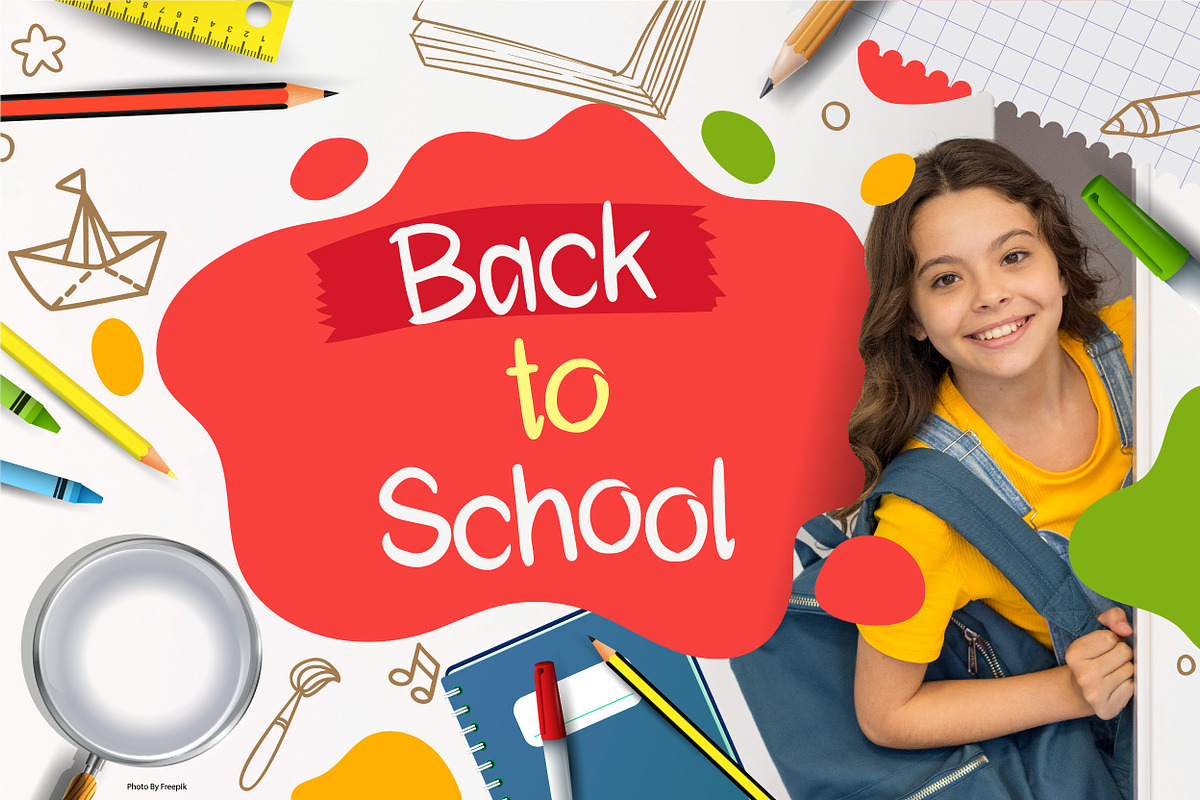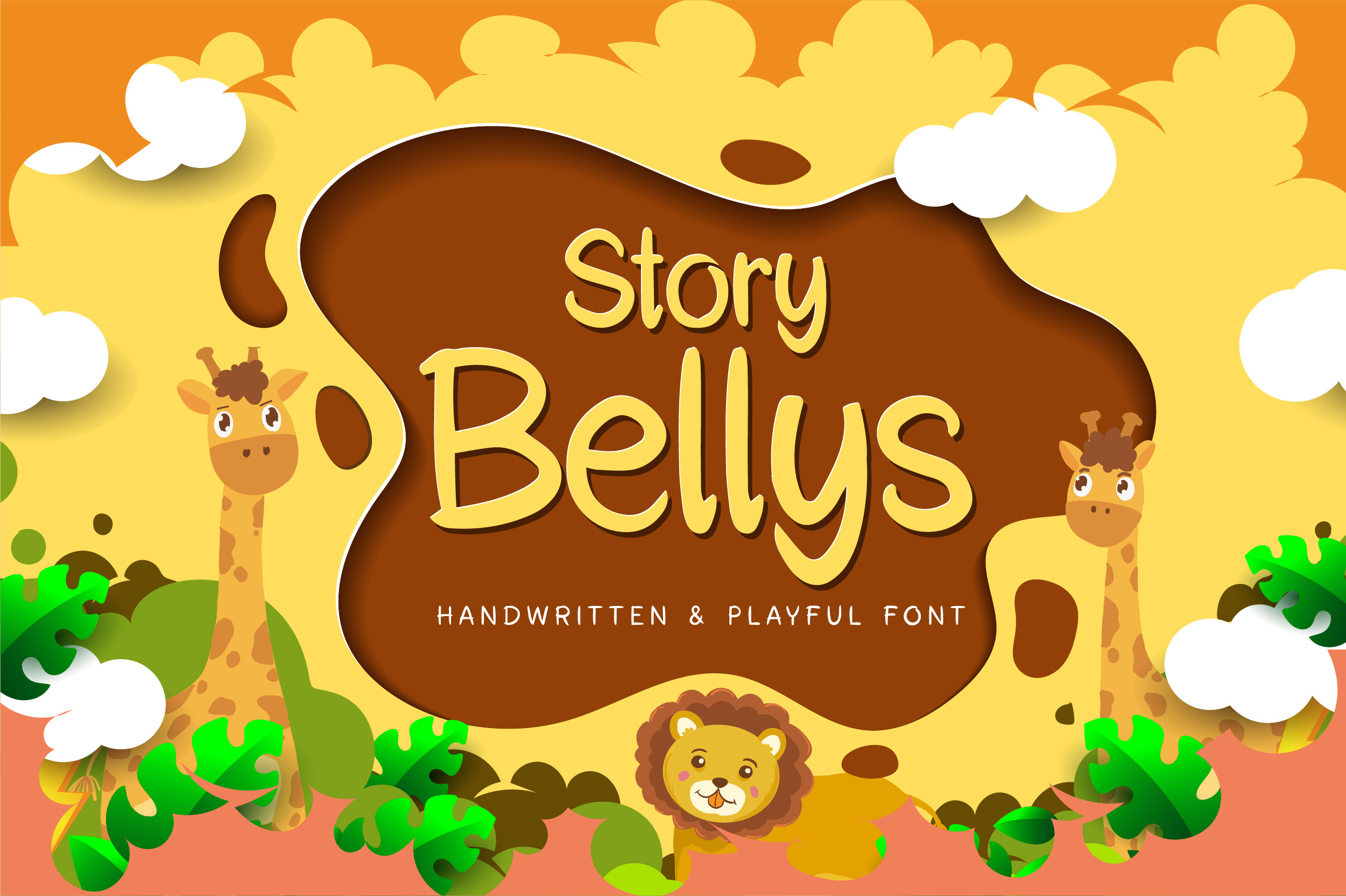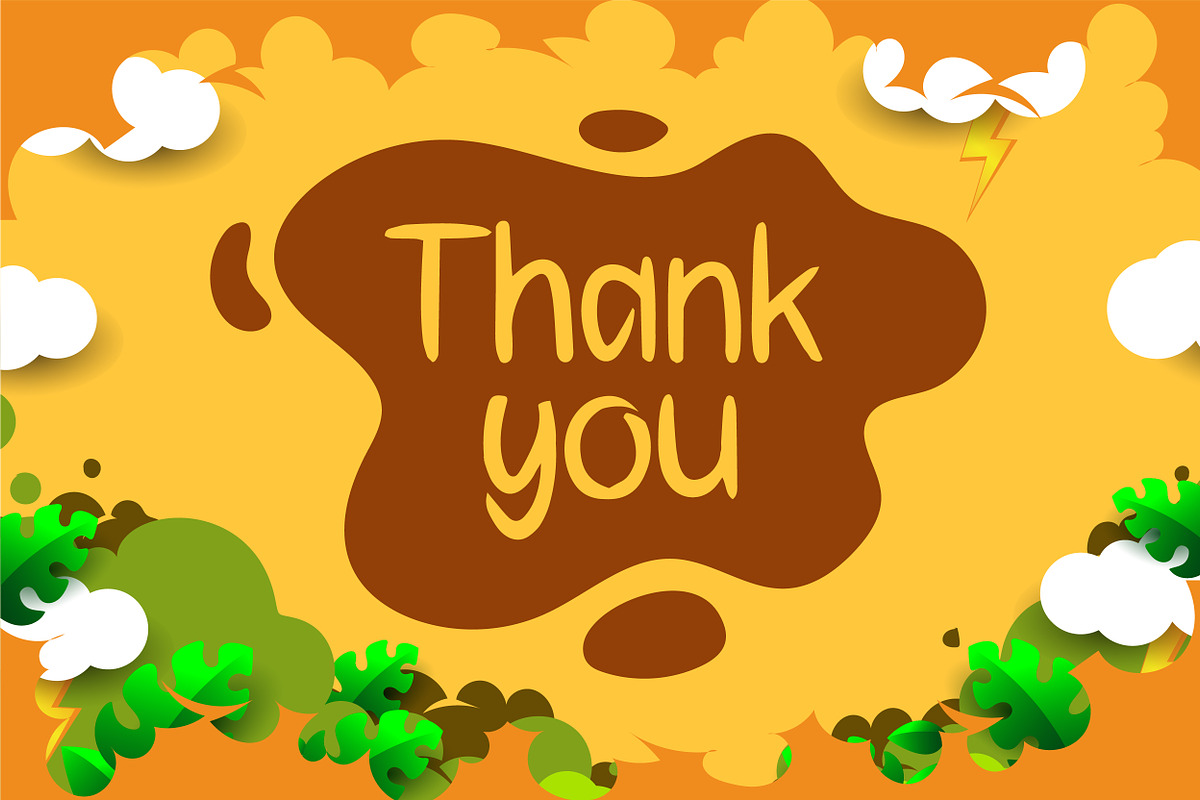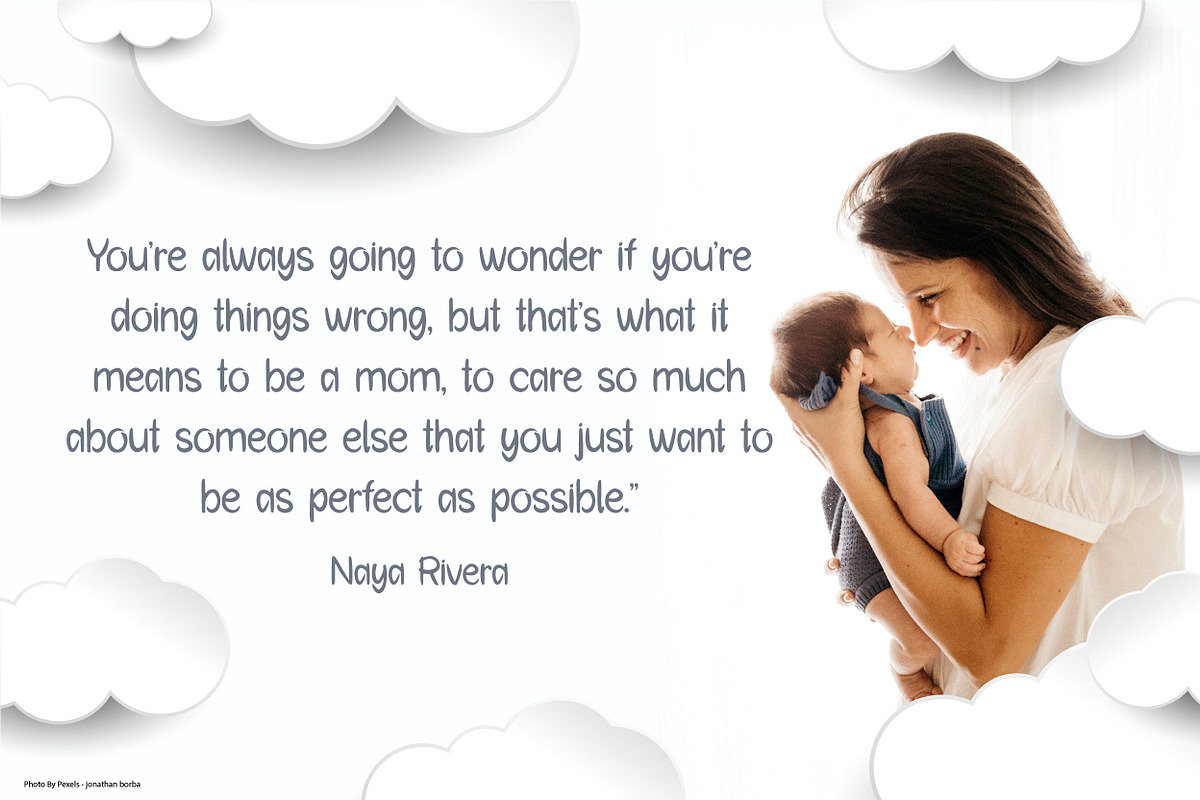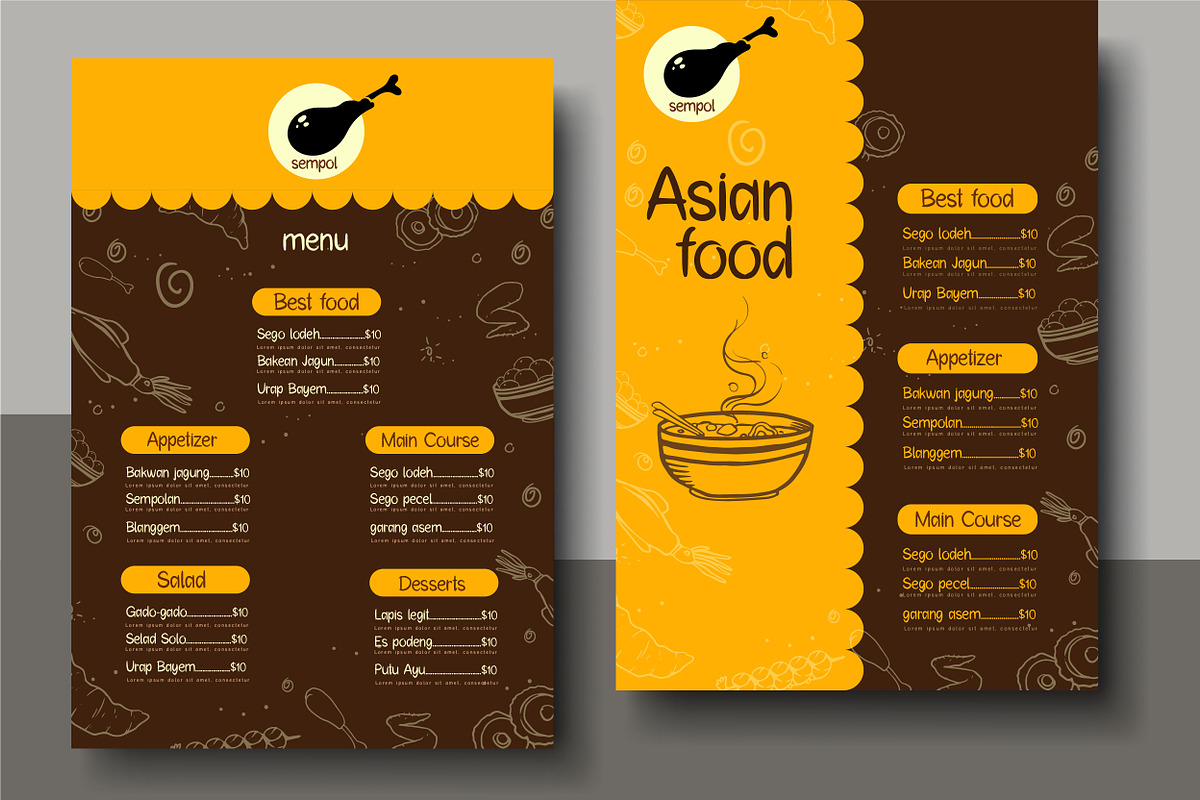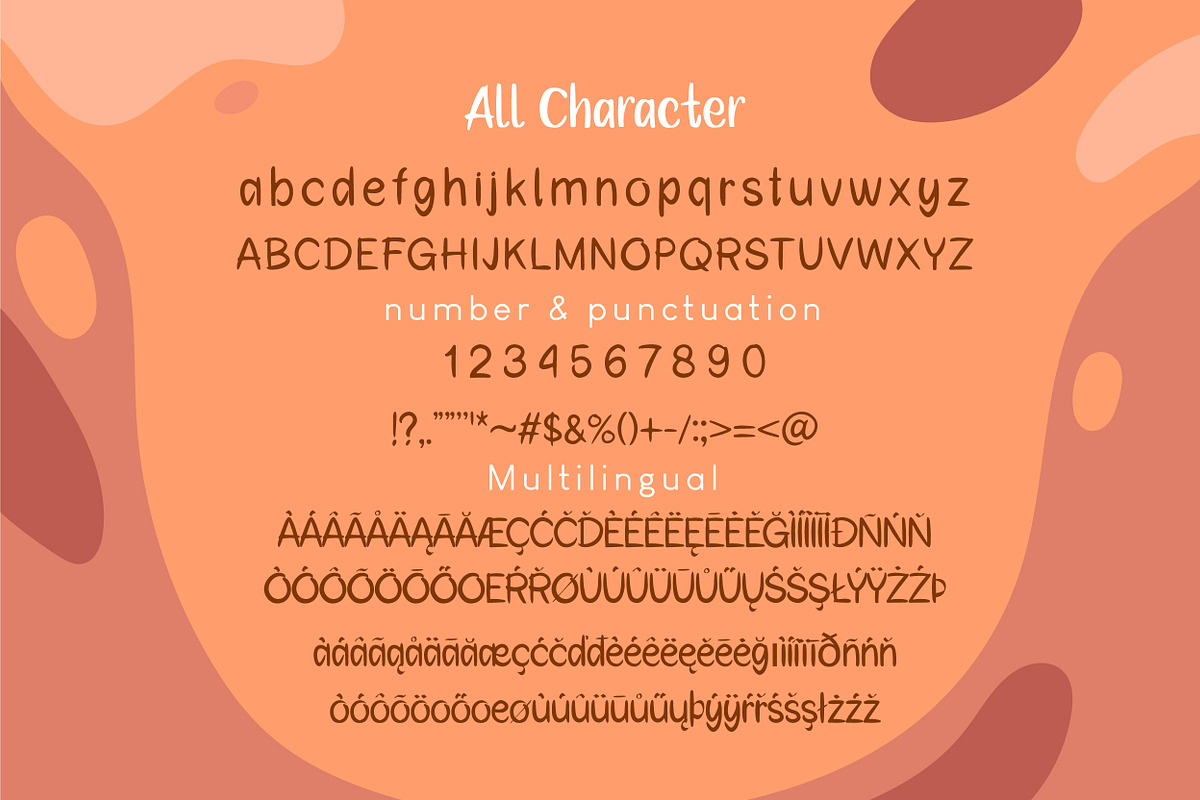
Story Bellys a Playful font
Introducing of our new product the name is Story Bellys, this is a sweet and round lettered handwritten font. Its natural and unique style makes it incredibly fitting to a large pool of designs. The only limit is your imagination!
- Numbers and Punctuation